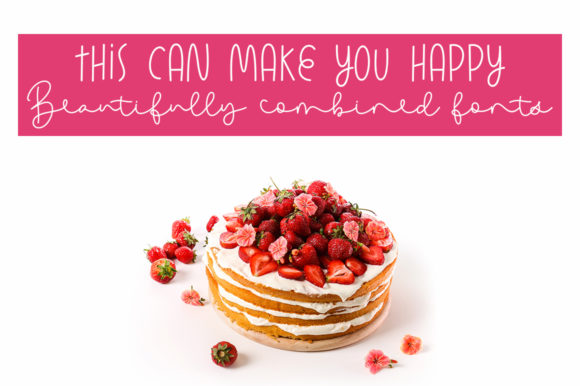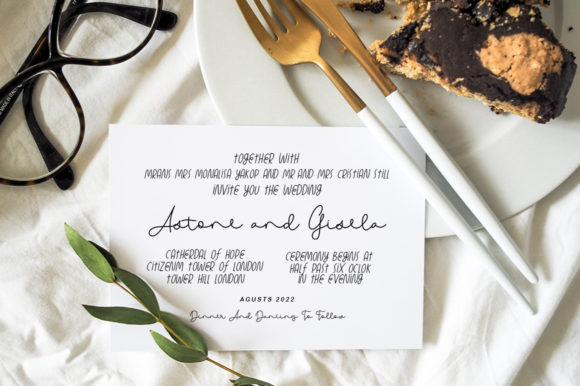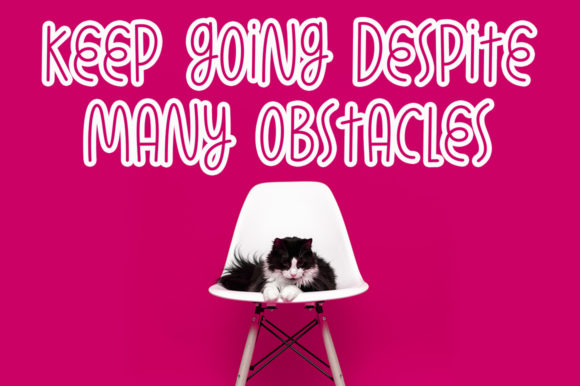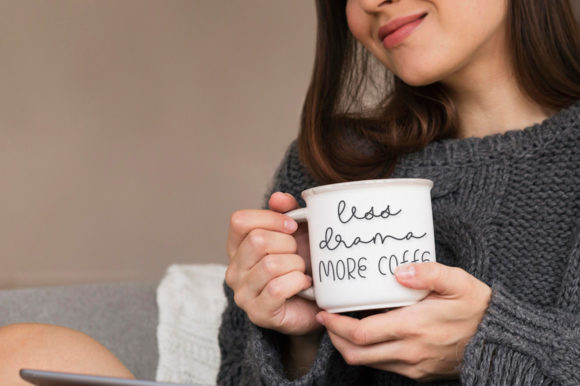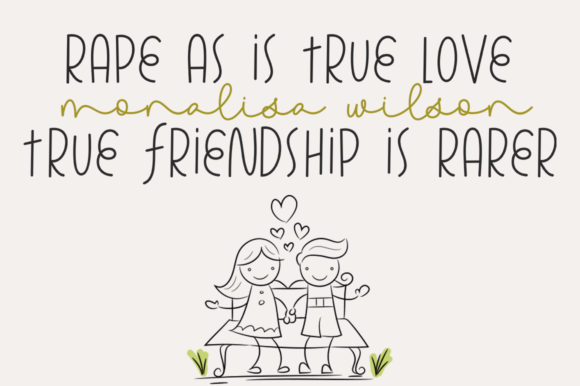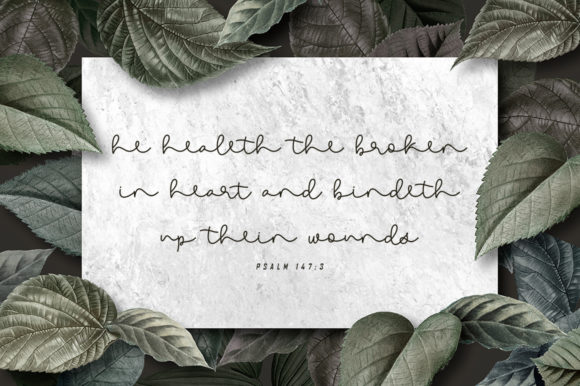
Introducing Happy Natural Font: The Perfect Handwritten Font for Your Creative Projects
Are you a designer or crafter looking for a charming and readable font to elevate your creative projects? Look no further than Happy Natural Font, a delightful duo handwritten font that is sure to brighten up a wide range of designs. With its incredibly adaptable and dainty style, Happy Natural Font is the perfect choice for creating stunning wedding invitations, beautiful stationary art, eye-catching social media posts, and much more!
What Makes Happy Natural Font So Special?
Happy Natural Font is a unique and versatile font that offers a range of creative possibilities. Its handwritten style gives it a personal and friendly feel, making it perfect for projects that require a touch of warmth and approachability. The font is also highly readable, ensuring that your message is conveyed clearly and effectively.
One of the standout features of Happy Natural Font is its adaptability. Whether you’re creating a formal wedding invitation or a playful social media post, this font can be tailored to suit your needs. Its dainty style makes it perfect for projects that require a touch of elegance and sophistication, while its playful feel ensures that it can also be used for more casual and creative projects.
Uses for Happy Natural Font
Happy Natural Font is a versatile font that can be used for a wide range of creative projects. Here are just a few ideas to get you started:
- Wedding Invitations: Create beautiful and elegant wedding invitations that set the tone for your special day. Happy Natural Font is perfect for printing or digital invitations, and can be paired with a range of design elements to create a unique and personalized look.
- Stationary Art: Add a touch of personality to your stationary art with Happy Natural Font. From greeting cards to letterheads, this font is sure to make your designs stand out.
- Social Media Posts: Create eye-catching social media posts that grab attention and engage your audience. Happy Natural Font is perfect for creating visually appealing graphics, quotes, and promotions that showcase your brand’s personality.
- Branding and Packaging: Use Happy Natural Font to create a cohesive brand identity that reflects your values and personality. From labels to packaging, this font is sure to make your brand stand out.
Why Choose Happy Natural Font?
With so many fonts to choose from, why should you choose Happy Natural Font? Here are just a few reasons why this font stands out:
- Unique and Versatile: Happy Natural Font is a one-of-a-kind font that offers a range of creative possibilities. Its unique style ensures that your designs will stand out, while its versatility makes it perfect for a wide range of projects.
- Highly Readable: Happy Natural Font is designed to be highly readable, ensuring that your message is conveyed clearly and effectively.
- Elegant and Playful: This font combines elegance and playfulness, making it perfect for projects that require a touch of sophistication and whimsy.
Tips for Using Happy Natural Font
Here are a few tips for getting the most out of Happy Natural Font:
- Pair with Other Fonts: Experiment with pairing Happy Natural Font with other fonts to create a unique and visually appealing design.
- Use for Headings and Body Text: Happy Natural Font is perfect for both headings and body text, making it a great choice for projects that require a clear and readable font.
- Add Decorative Elements: Add decorative elements, such as illustrations or graphics, to enhance your design and make it more visually appealing.
In conclusion, Happy Natural Font is a charming and readable duo handwritten font that is perfect for a wide range of creative projects. Its adaptability, elegance, and playfulness make it a great choice for designers and crafters looking to add a touch of personality to their designs. Whether you’re creating wedding invitations, stationary art, social media posts, or branding and packaging, Happy Natural Font is sure to brighten up your designs and make them stand out.
| Font Name | Happy Natural Font |
| Author | IRF Lab Studio |